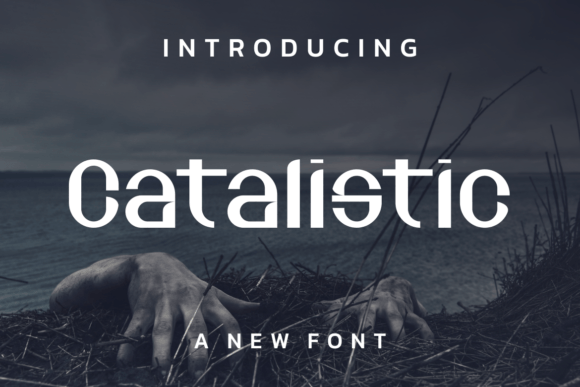
The Font that Stole my Heart: A Deep Dive into Catalistic
I still remember the design project that led me to discover Catalistic. I was working on a client’s branding package, and I just couldn’t seem to find the right font. The client wanted something modern, cool, and versatile, but everything I tried seemed to fall flat. That’s when I stumbled upon Catalistic, and let me tell you, it was love at first sight! 💕
Whether I’m working on digital designs, crafting, or making greeting cards, Catalistic has become my go-to font. Its unique blend of modernity and playfulness makes it perfect for a wide range of projects. In this article, I’ll share my honest review of Catalistic, provide a practical guide on how to use it, and explore some similar fonts you might love.
My Honest Review of Catalistic
- ✅ Modern and Cool: Catalistic has a sleek, contemporary look that’s perfect for making a statement.
- ✅ Versatile: This font can be used for a wide range of projects, from digital designs to crafts and presentations.
- ✅ Easy to Read: Despite its modern look, Catalistic is surprisingly easy to read, even at smaller font sizes.
- ✅ OpenType Features: Catalistic comes with a range of OpenType features, including glyphs and stylistic alternates, that allow for endless creativity.
- ⚠️ Limited Use in Formal Contexts: While Catalistic is amazing for creative projects, it might not be the best choice for formal documents or professional settings.
- ⚠️ Occasional Kerning Issues: As with any font, there might be some kerning issues, especially when using all caps or mixing different font sizes.
The Story Behind Catalistic
Catalistic was designed with the goal of creating a modern, versatile font that could be used for a wide range of projects. The designer drew inspiration from the urban landscape, combining clean lines and geometric shapes with a touch of playfulness. The result is a font that’s both cool and approachable.
Q: Is Catalistic suitable for body text?
A: While Catalistic is primarily designed as a display font, it can be used for body text in certain contexts. However, it’s recommended to use a clear, legible font for longer blocks of text.